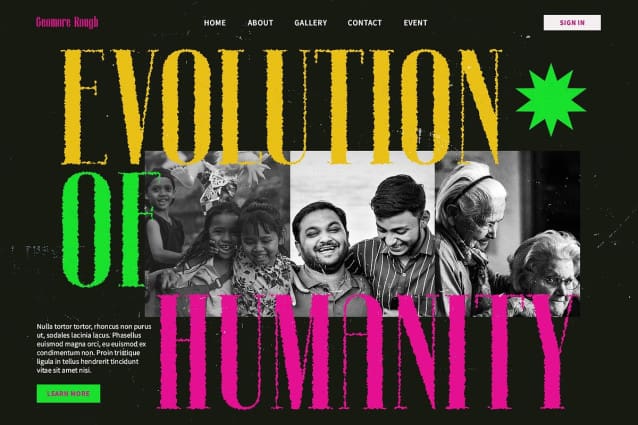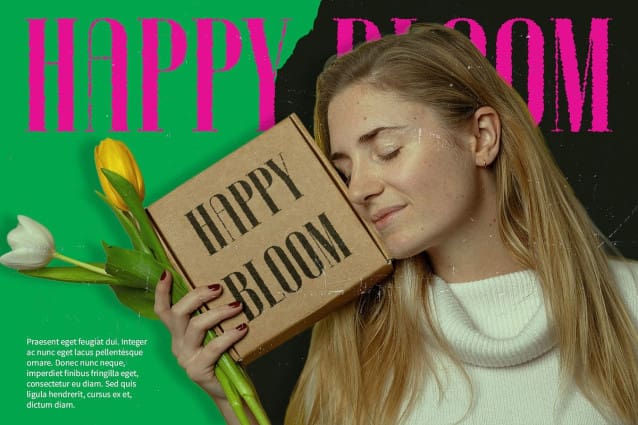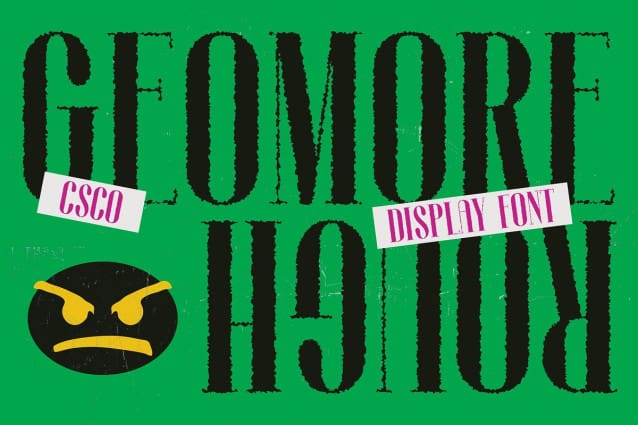
Geomore Rough Font
Geomore Rough Font is a condensed serif font with a rough vibe, perfect for adding character and charm to your designs. Its unique design is ideal for headlines, posters, and other display purposes where you want to make a bold statement.
With its condensed form, Geomore Rough maximizes space efficiency without compromising on readability. This makes it perfect for situations where space is limited, such as banners and headers.
Experience the subtle elegance of Geomore Rough’s rough vibe, perfect for creating sophisticated displays with a touch of rawness. The roughness adds a unique charm to your designs, making them stand out.
Despite its condensed form and rough vibe, Geomore Rough is versatile and suitable for a wide range of projects. Whether you’re designing posters, packaging, logos, or more, GeomoreRough adds a unique flair to your designs, making them memorable and impactful.